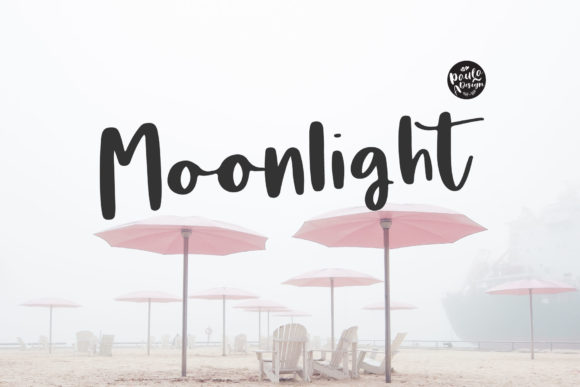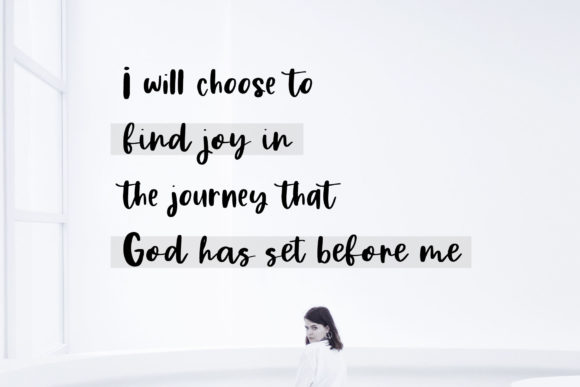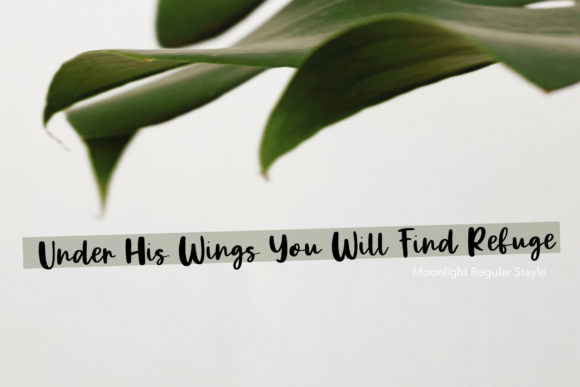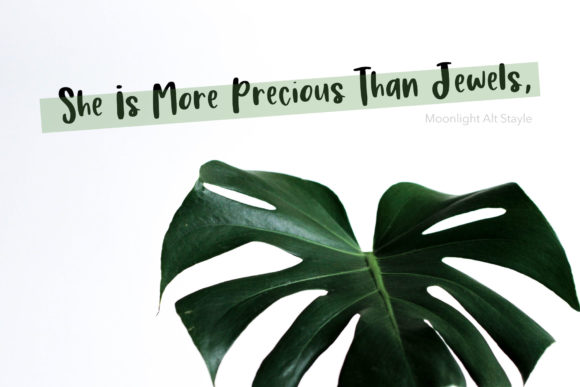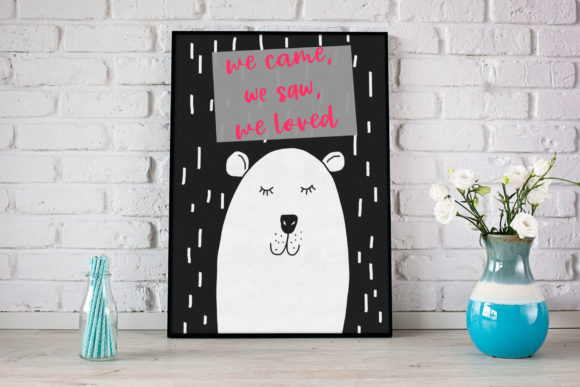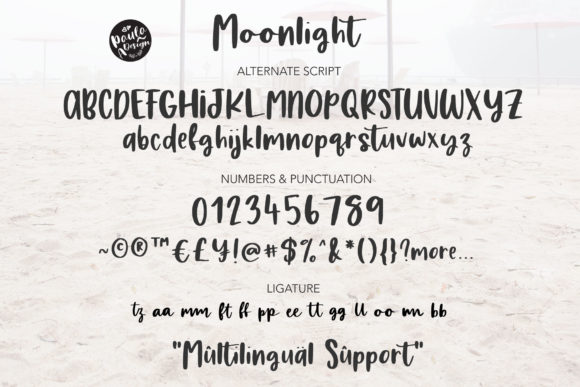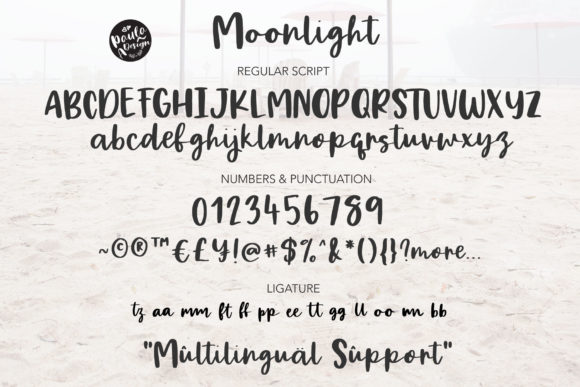
Moonlight Font
About Moonlight Font
The Moonlight is a chic brush script. Every letter has been carefully created to give your text an unique look. It’s perfct for high impact headlines but can also be used for invitations, branding, blog posts, and much more!